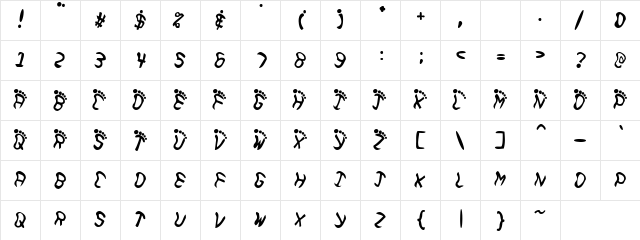
Follower Regular
Design Context for Follower Typeface
Follower is a composed and adaptable typeface that performs quietly and consistently across a wide range of design contexts.